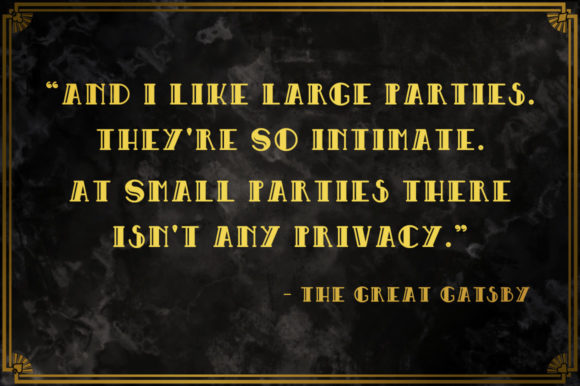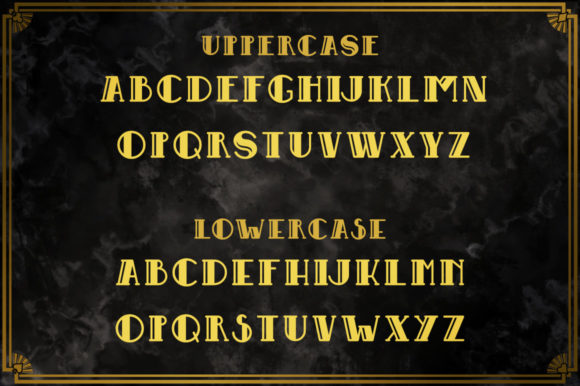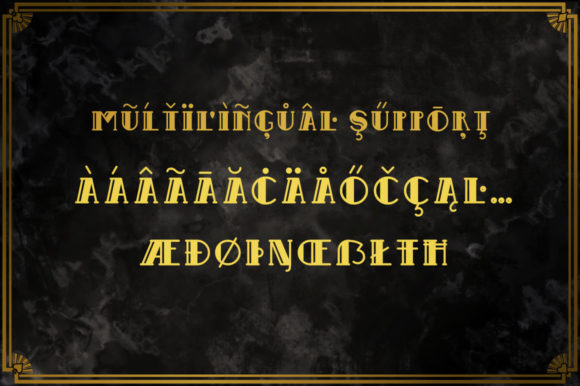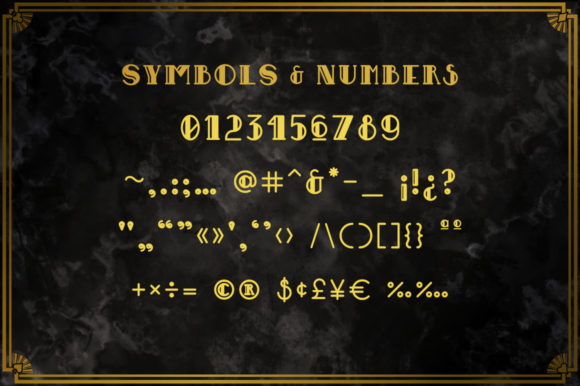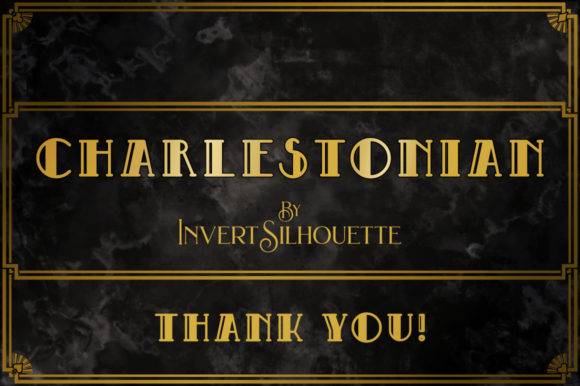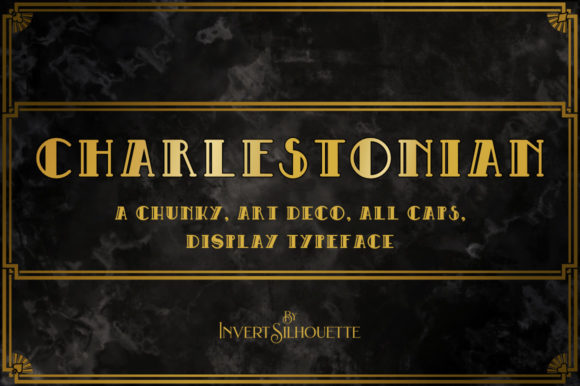
Introducing the Charlestonian Font: Elevate Your DIY Projects with Art Deco Elegance
Are you a designer, crafter, or DIY enthusiast looking to add a touch of sophistication and glamour to your projects? Look no further than the Charlestonian font, an Art Deco-inspired display font that’s sure to bring any creation to life. With its unique blend of vintage charm and modern style, this gorgeous font is perfect for anyone seeking to add a dash of elegance to their work.
What is the Charlestonian Font?
The Charlestonian font is a stunning Art Deco-inspired display font that’s designed to evoke the luxury and glamour of the Roaring Twenties. With its bold lines, geometric shapes, and ornate details, this font is perfect for creating eye-catching headings, titles, and signage that demand attention. Whether you’re working on a DIY project, designing a logo, or simply looking for a unique font to add to your collection, the Charlestonian font is sure to impress.
Key Features of the Charlestonian Font
• Art Deco Inspiration: The Charlestonian font draws inspiration from the opulent and glamorous style of the Art Deco era, making it perfect for projects that require a touch of vintage sophistication.
• Unique and Ornate: With its intricate details and ornate flourishes, the Charlestonian font is a true standout in the world of typography.
• Bold and Eye-Catching: This font is designed to make a statement, making it perfect for headings, titles, and signage that need to grab attention.
• Highly Versatile: The Charlestonian font can be used for a wide range of projects, from DIY crafts and scrapbooking to logo design and branding.
Uses for the Charlestonian Font
The Charlestonian font is incredibly versatile, making it suitable for a wide range of projects and applications. Here are just a few ideas to get you started:
• DIY Crafts: Add a touch of elegance to your DIY crafts, such as handmade cards, gift tags, and decorations.
• Scrapbooking: Use the Charlestonian font to create eye-catching headings and titles for your scrapbook pages.
• Logo Design: Create a unique and memorable logo for your business or brand using the Charlestonian font.
• Signage: Use this font to create stunning signage for your business, event, or exhibition.
Tips for Using the Charlestonian Font
To get the most out of the Charlestonian font, here are a few tips to keep in mind:
• Use it Sparingly: Due to its bold and ornate nature, it’s best to use the Charlestonian font sparingly to avoid overwhelming the viewer.
• Pair it with Simple Fonts: Pair the Charlestonian font with simpler fonts to create visual interest and balance.
• Experiment with Colors: The Charlestonian font looks stunning in metallic colors, such as gold, silver, and copper.
In conclusion, the Charlestonian font is a stunning Art Deco-inspired display font that’s perfect for designers, crafters, and DIY enthusiasts looking to add a touch of elegance and sophistication to their projects. With its unique blend of vintage charm and modern style, this gorgeous font is sure to bring any creation to life. So why wait? Download the Charlestonian font today and start elevating your DIY projects to new heights!